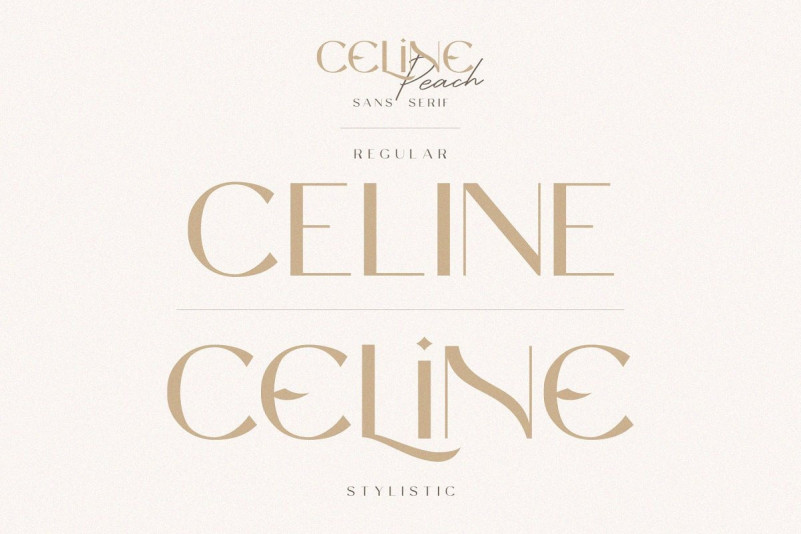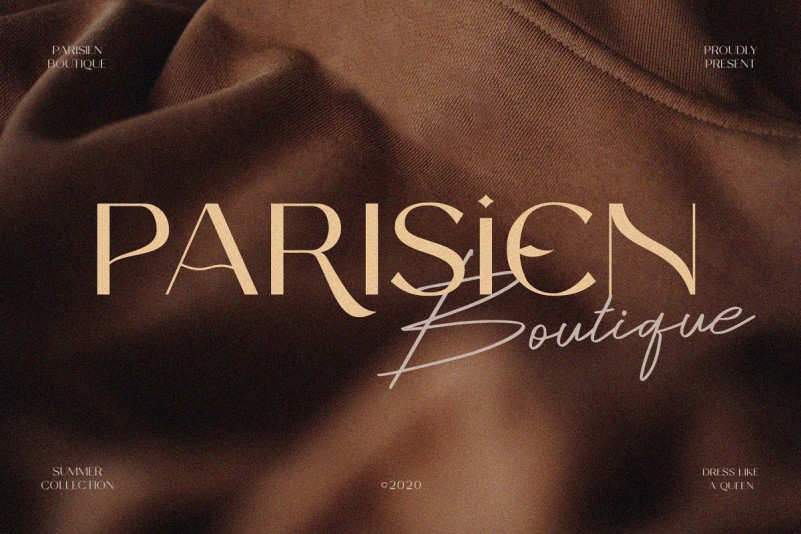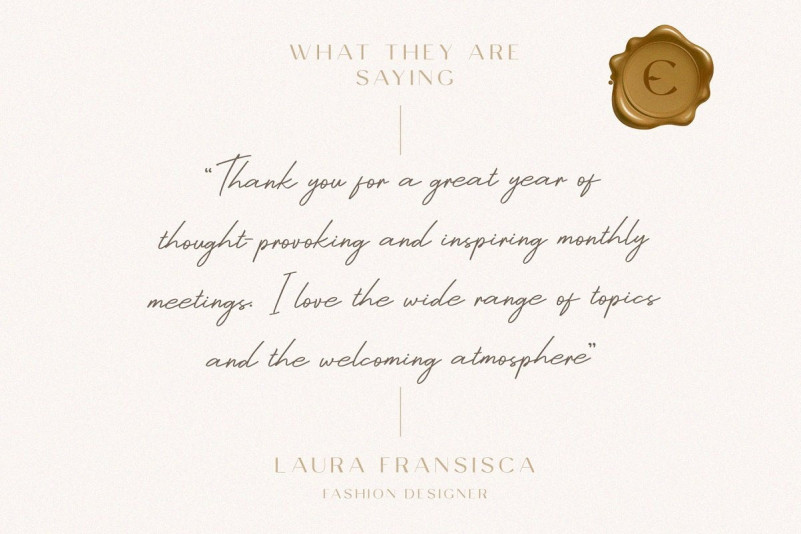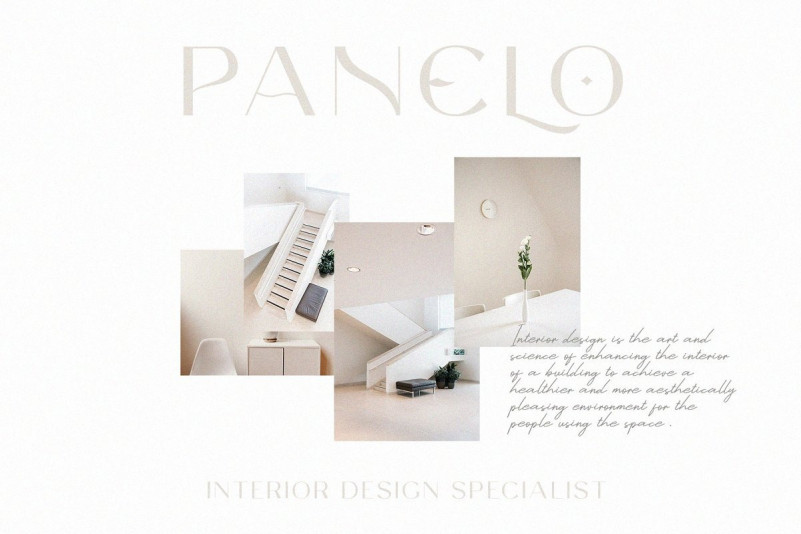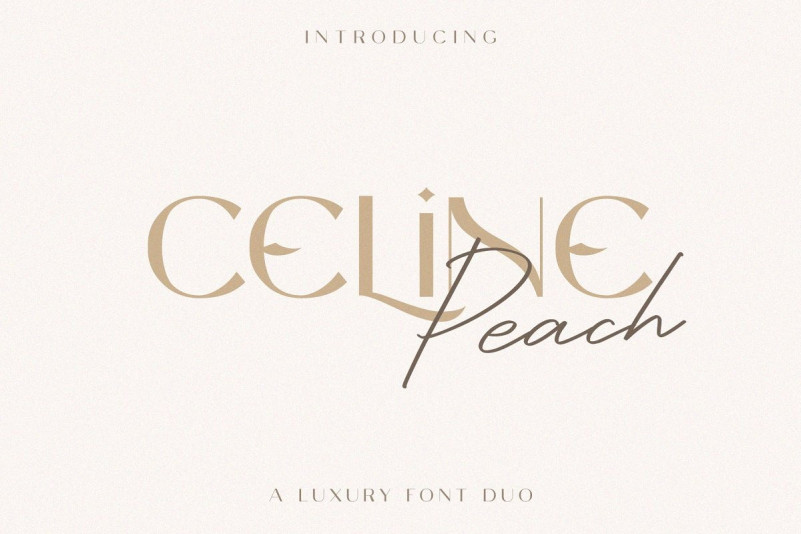
Celine Peach Font Duo
Celine Peach Font Duo – Free Demo is a brand new and exciting font duo. A uniquely styled sans-serif that is classy and classic but with a modern twist that’s paired perfectly with a spicy script which is full of life and bounce. A Luxury Font Duo is a combination of an elegant sans serif font & beauty handwritten script font based on the expression of real handwriting. Celine Peach – A Luxury Font Duo will work perfectly for fashion, e-commerce brands, trend blogs, wedding boutiques or any business that wants to appear upscale and chic.
This font is perfect for branding, wedding invites, magazines, mugs, business cards, quotes, posters, and more.